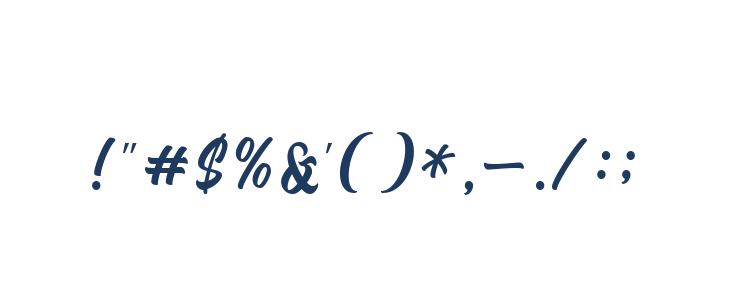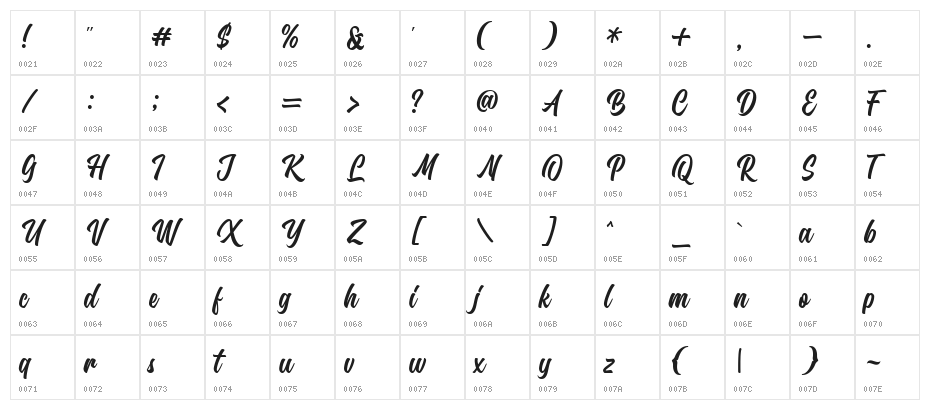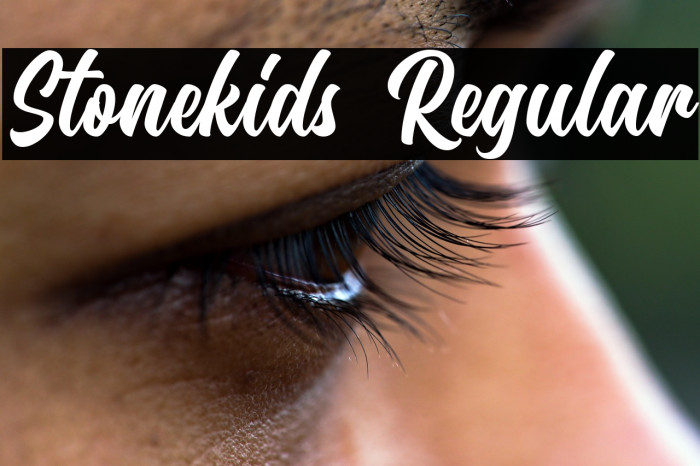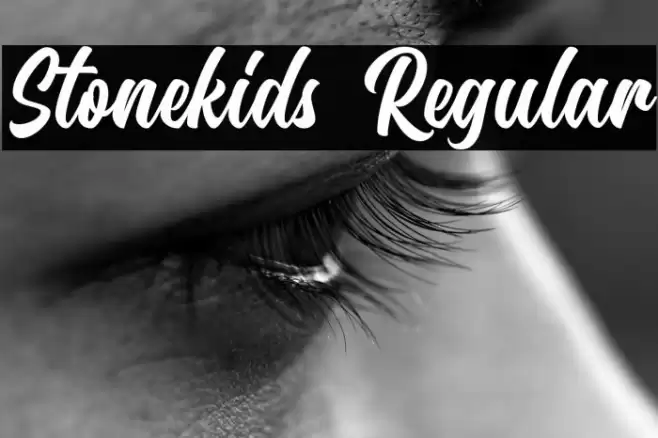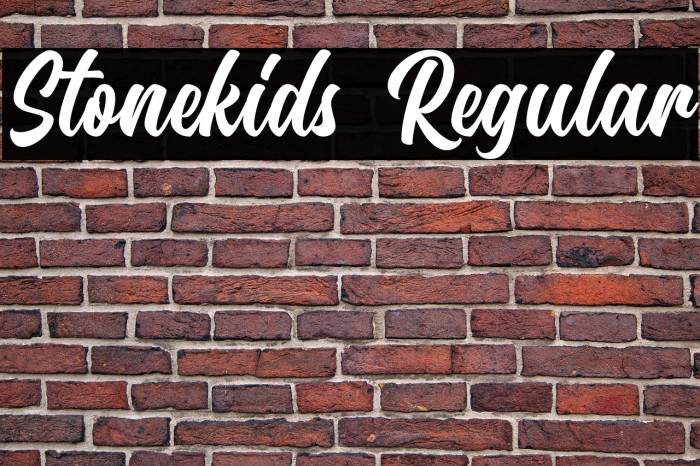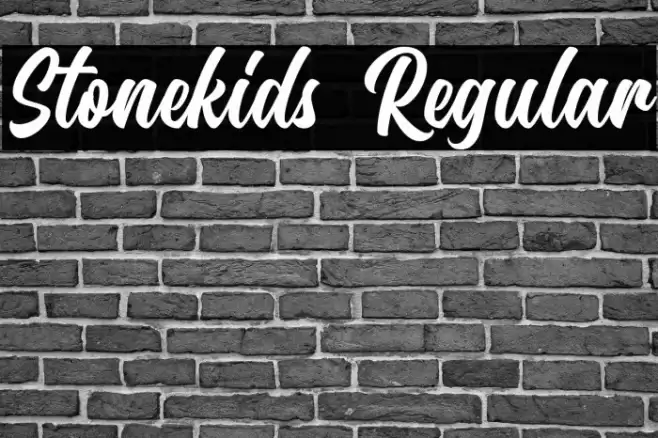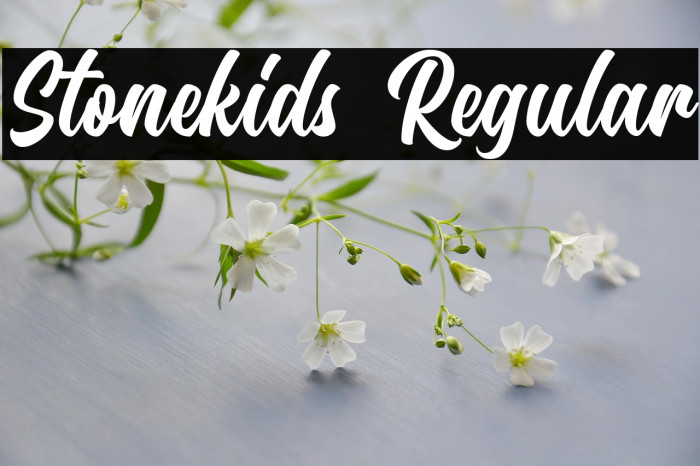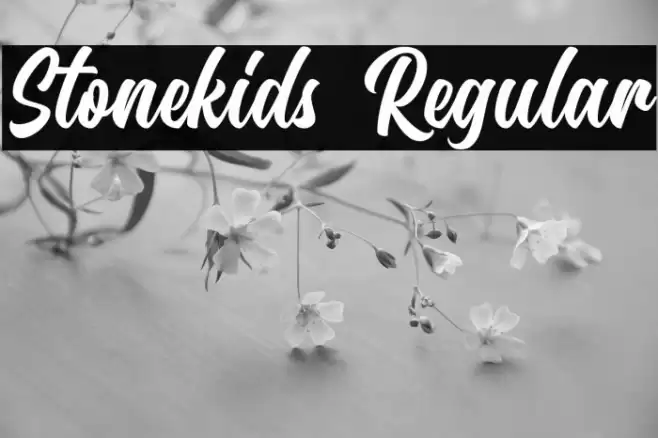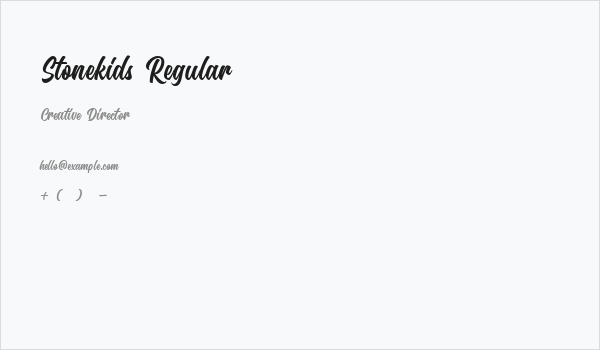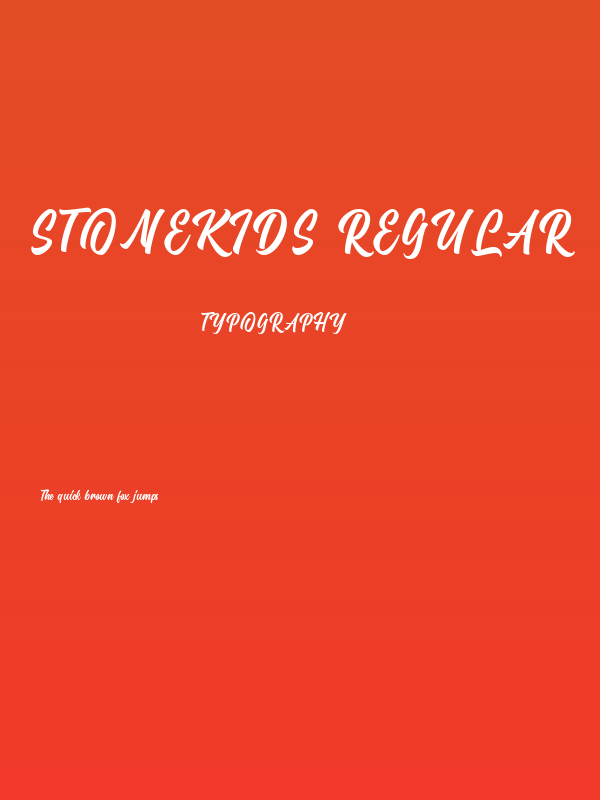
Stonekids Regular Font
Stonekids Regular Description
This font features a bold and flowing script style, characterized by its elegant and smooth curves. The letters are interconnected, creating a sense of continuity and fluidity. The uppercase letters are slightly larger and more pronounced, while the lowercase letters maintain a consistent flow. The font includes a full set of numerals and a variety of special characters, making it versatile for different uses. Its design is both modern and classic, suitable for projects that require a touch of sophistication and style.
| Proposed Projects | Ideal for wedding invitations, branding, logos, and elegant packaging designs. |